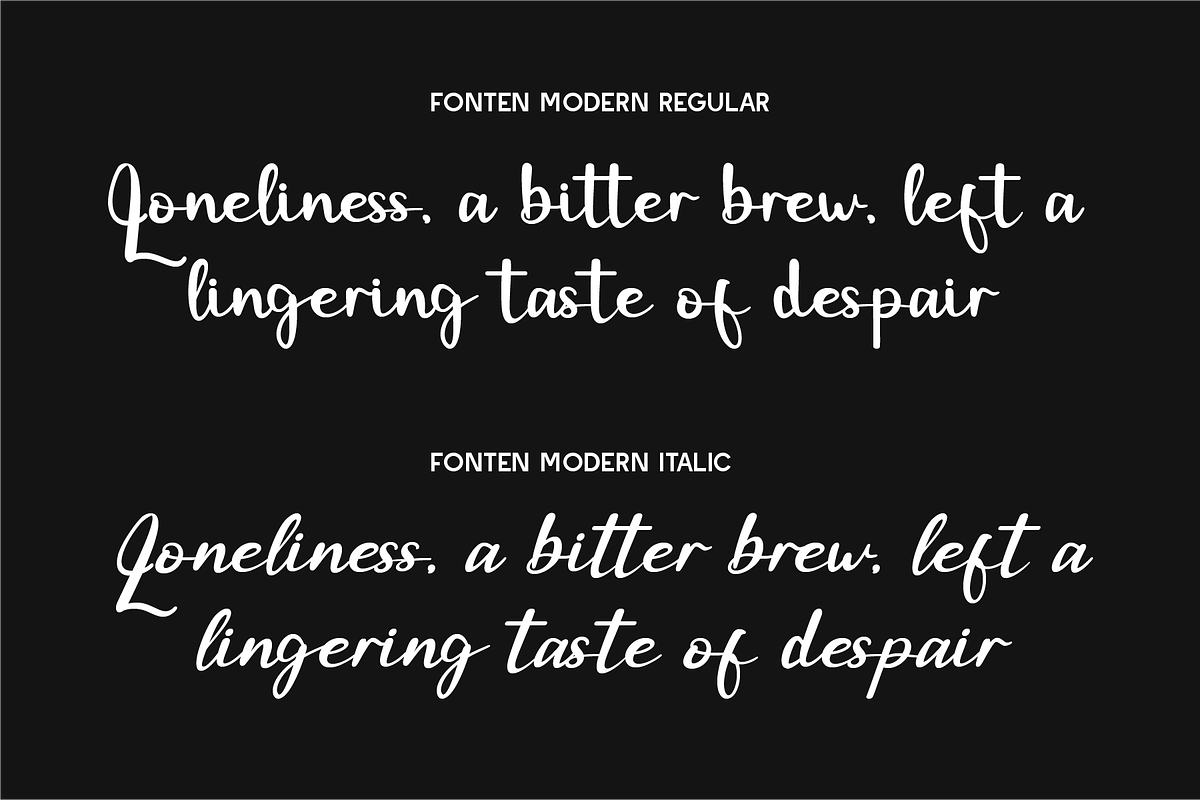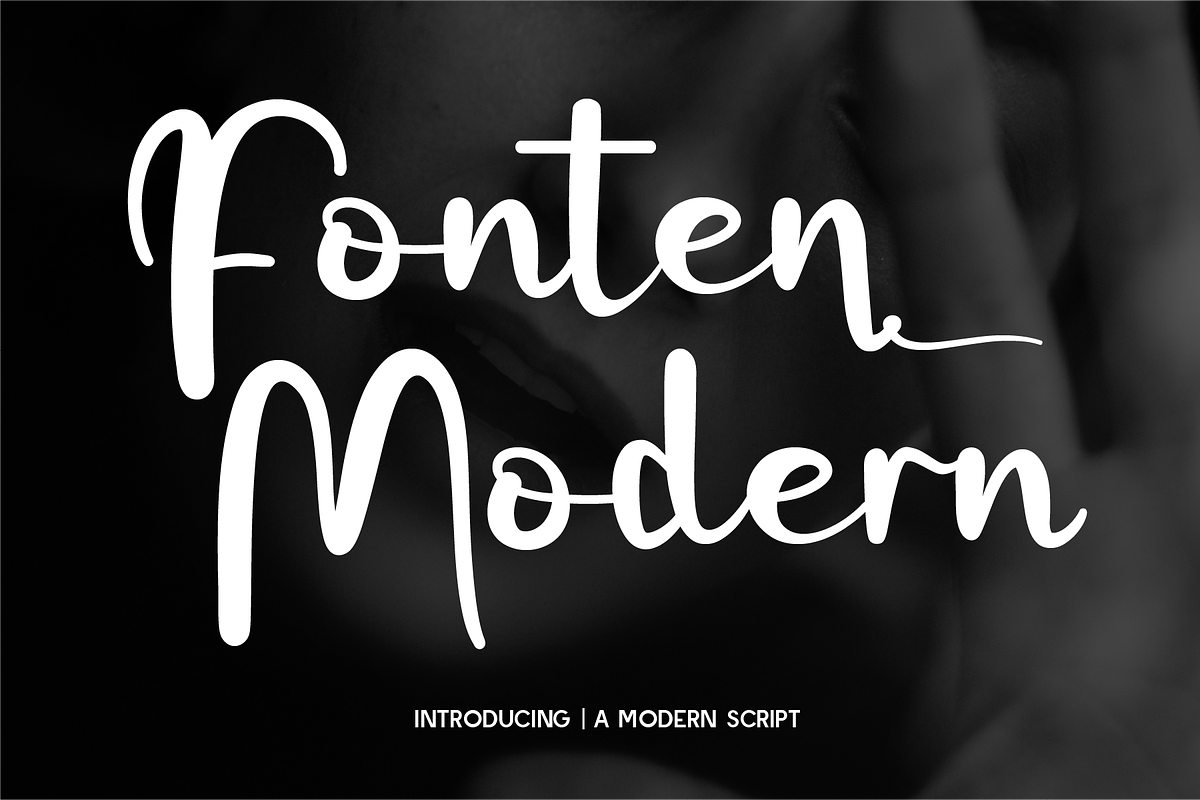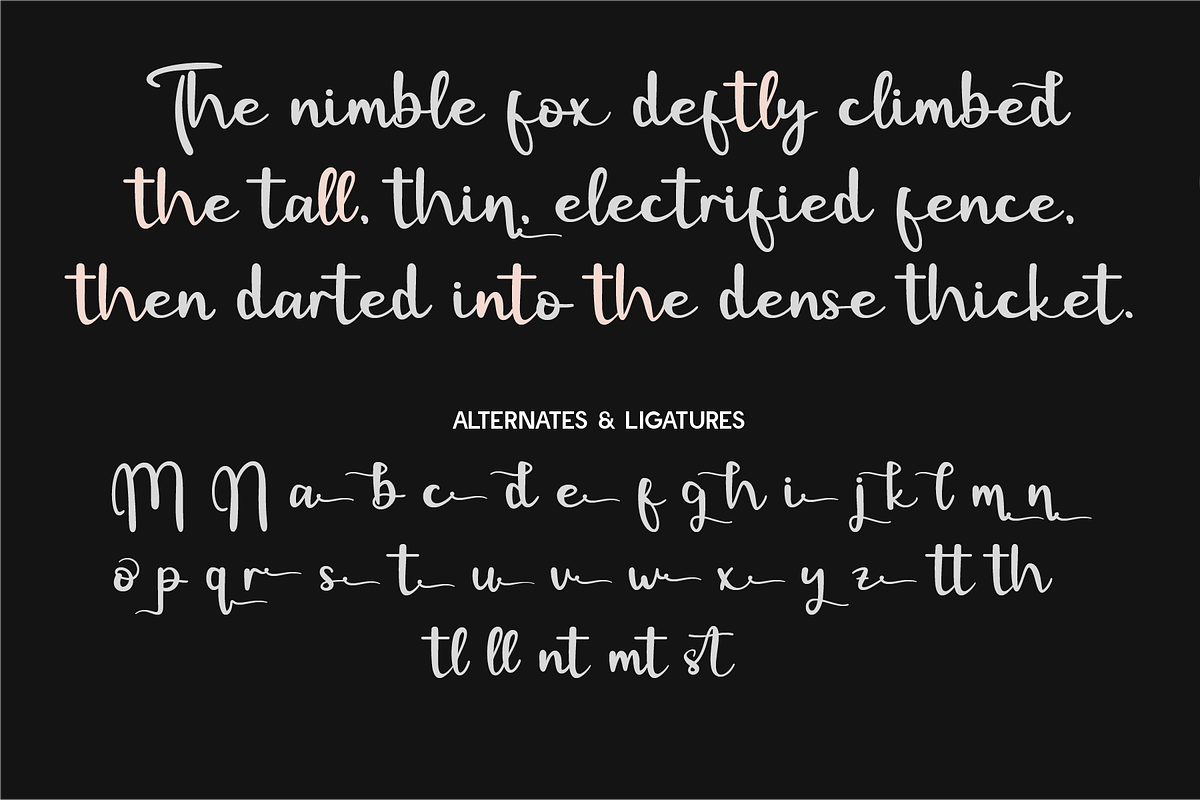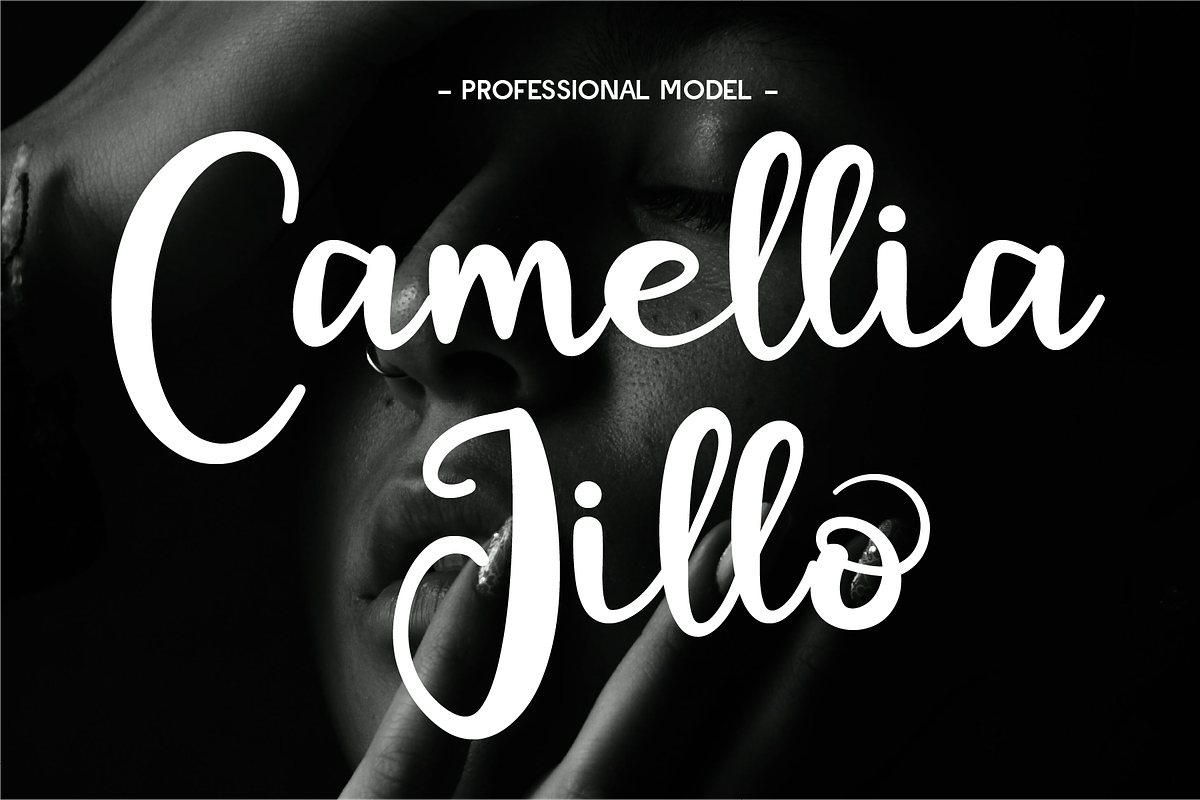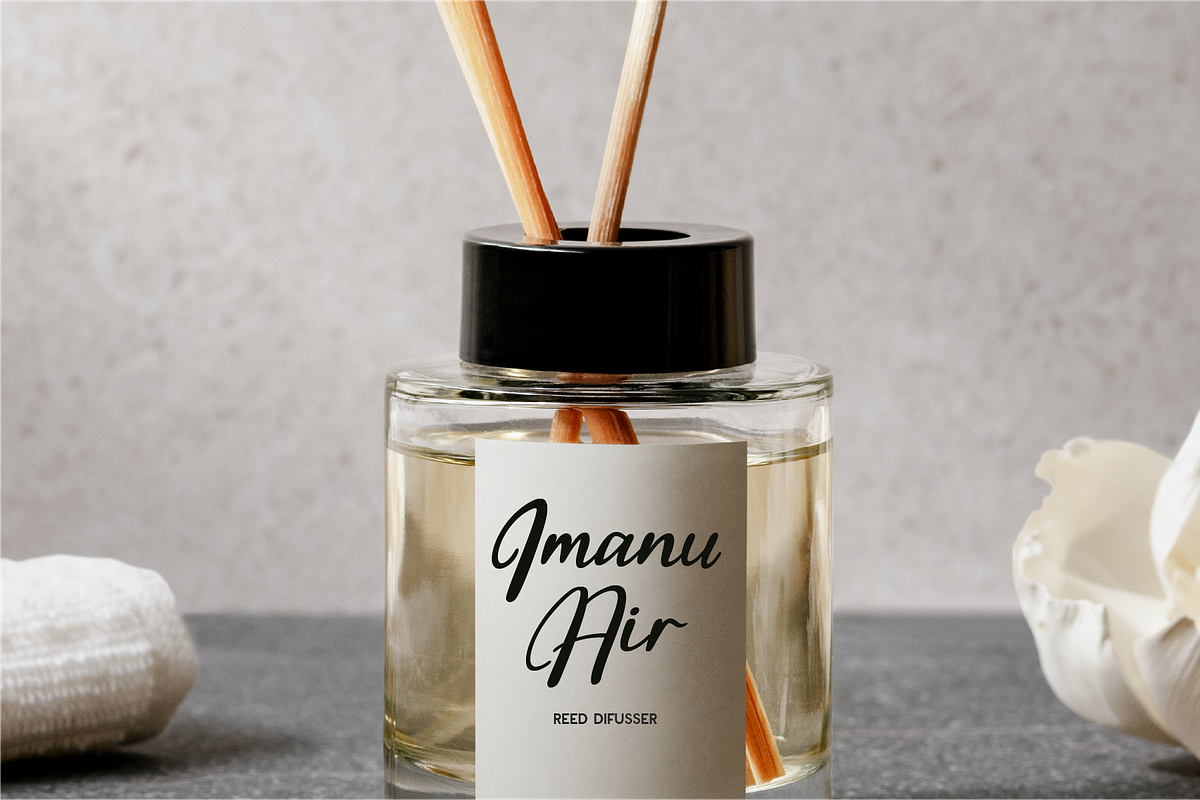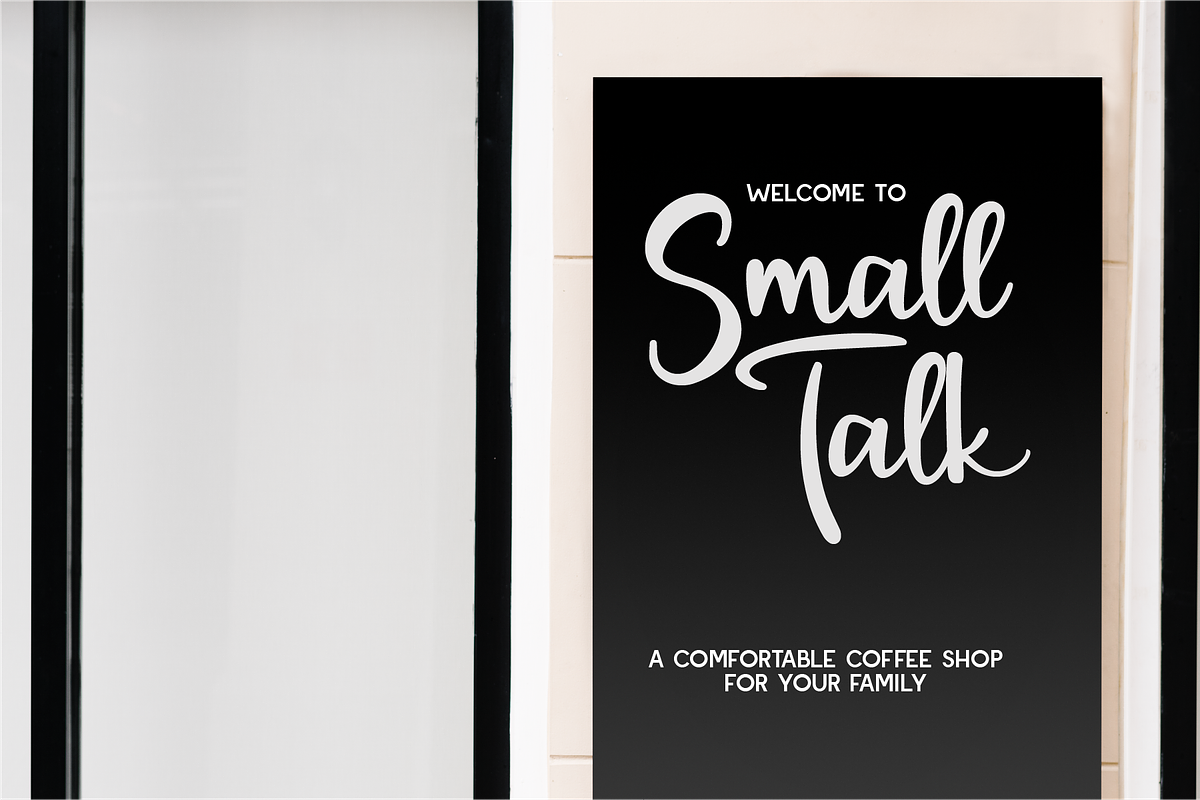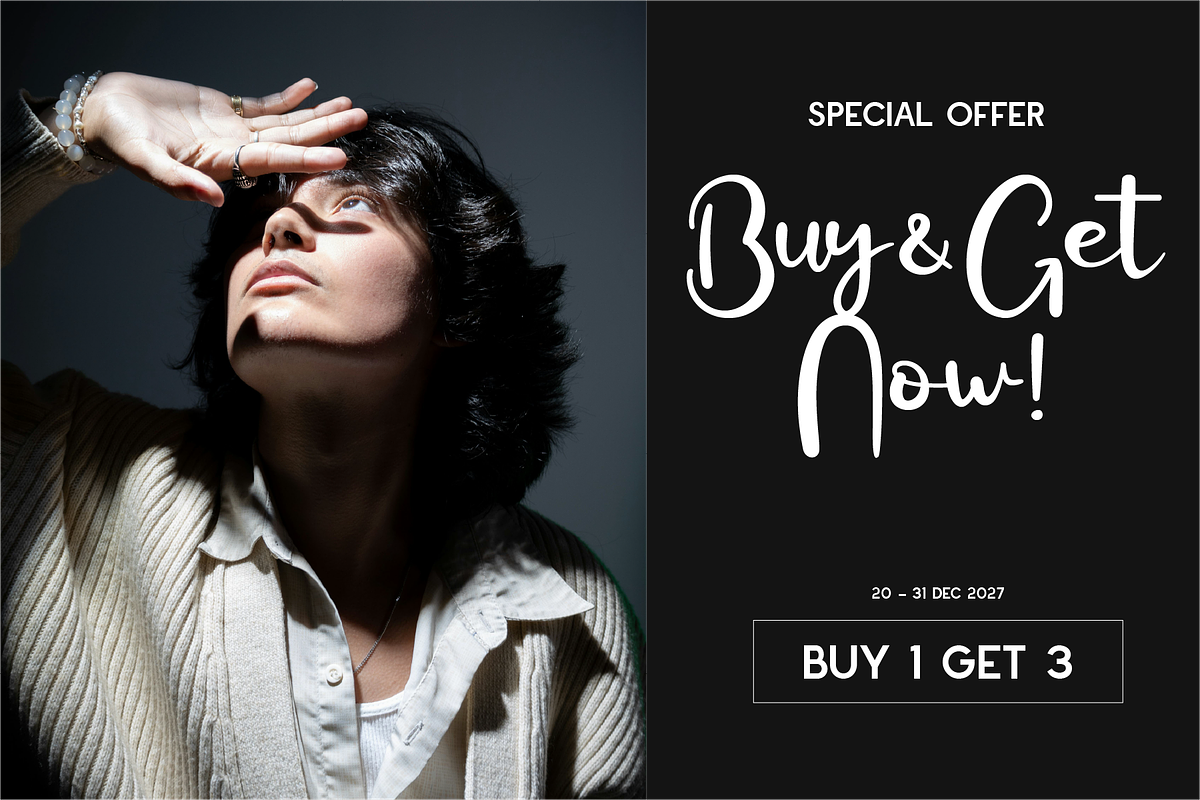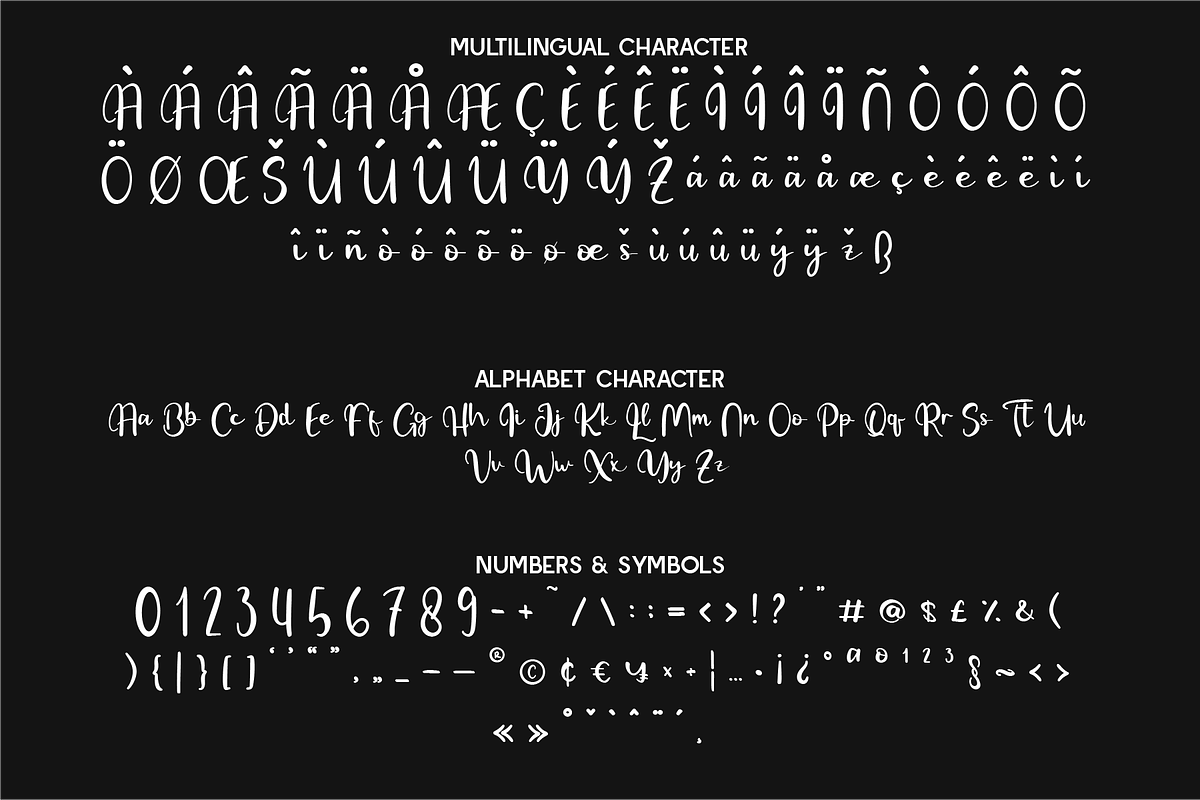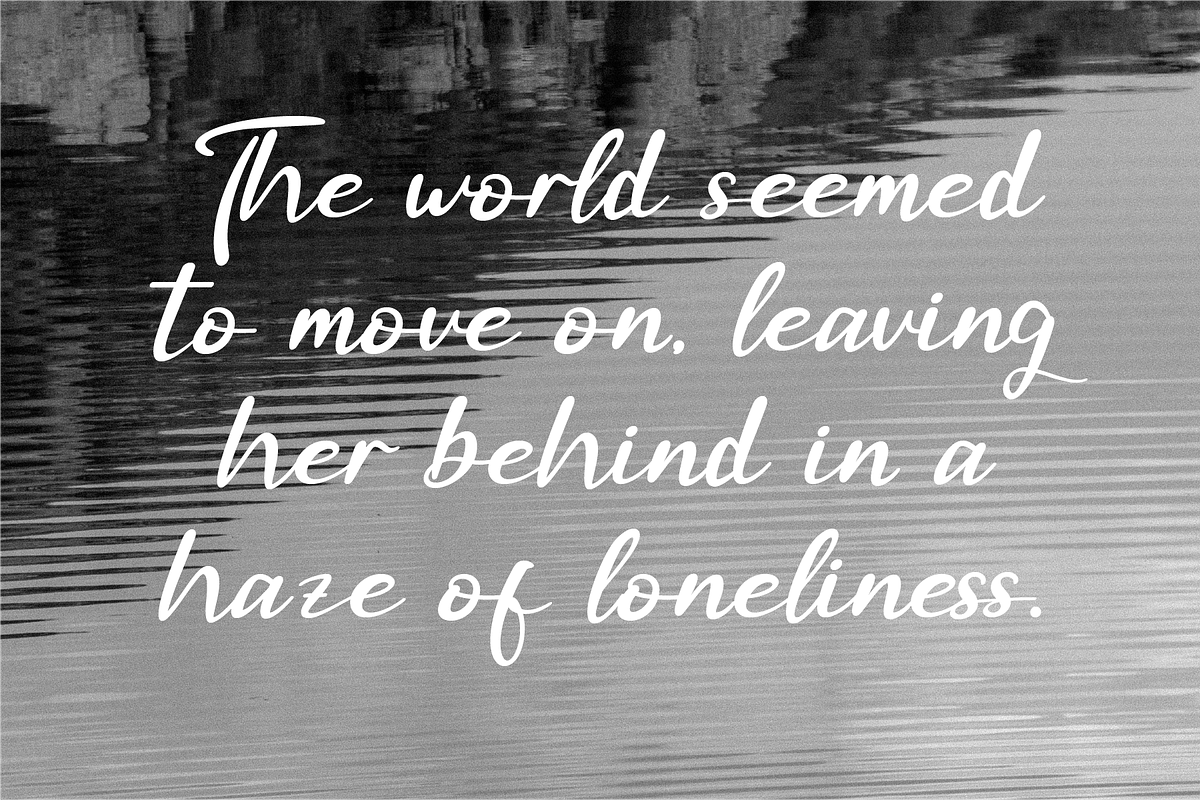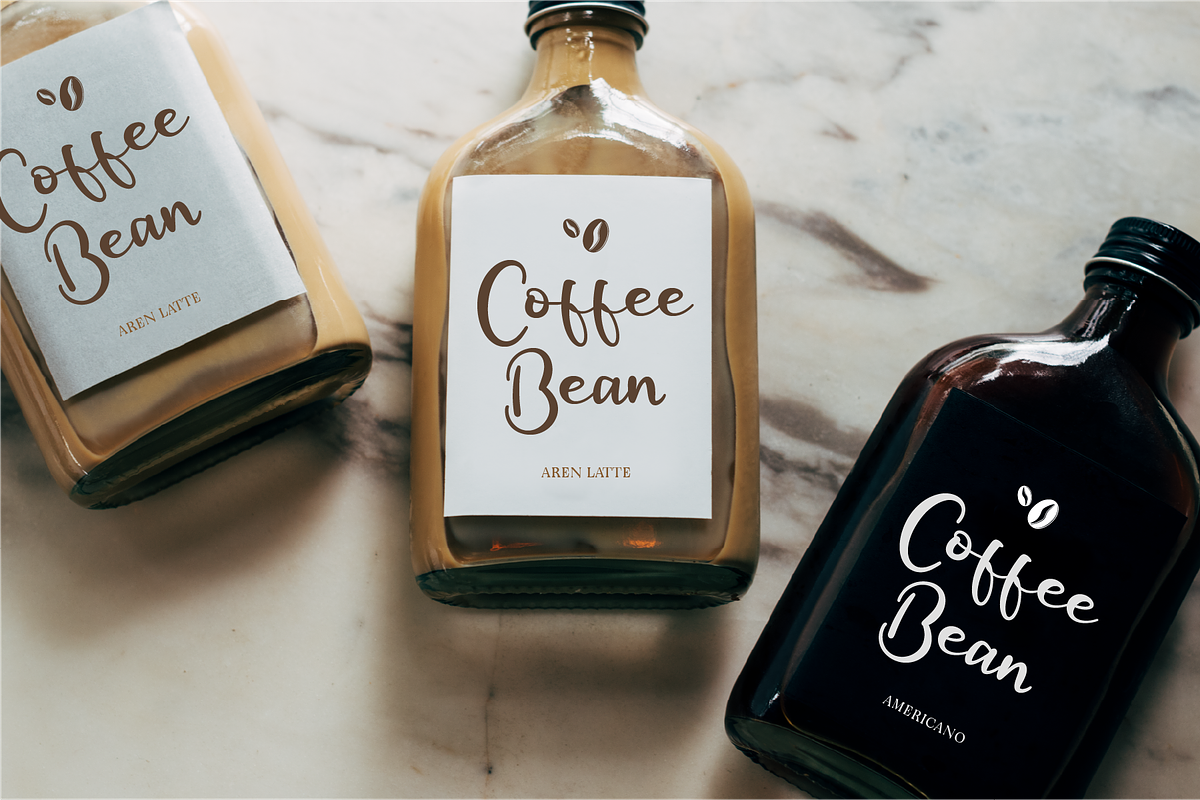
Fonten Modern - Contemporary Script
Fonten Modern is a stylish and contemporary script font that blends bold strokes with fluid, elegant curves. Designed to bring a sense of confidence and sophistication, this typeface features smooth, flowing lines with a modern calligraphic touch. The combination of thick and thin strokes adds character and versatility, making it perfect for branding, product packaging, logos, website headers, social media posts, and editorial design. With its effortlessly chic aesthetic, Fonten Modern is ideal for luxury branding, fashion-related designs, beauty industry projects, and creative advertising. Whether you're crafting elegant wedding invitations, bold magazine titles, or modern business logos, this font ensures a dynamic and eye-catching presence. Its balance of contemporary style and graceful script forms makes it a standout choice for projects requiring both impact and refinement. A SUMMARY OF WHAT'S INCLUDED: